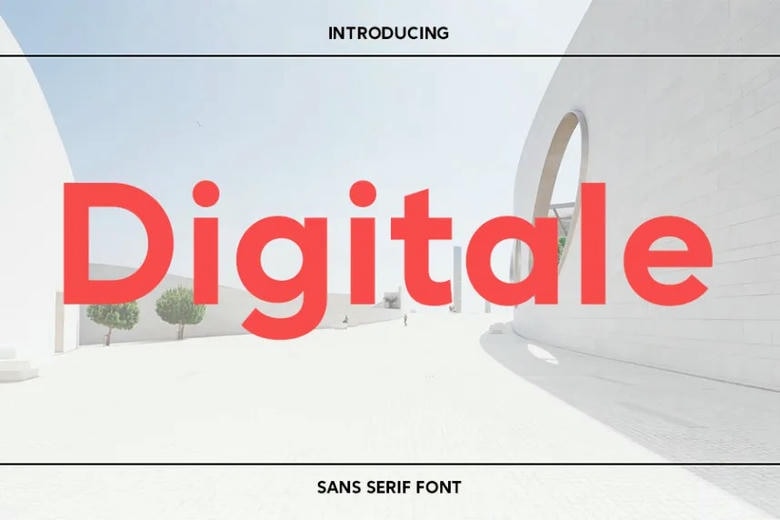
Digitale Font Family
Digitale Font Family is a multi-purpose geometric sans serif family, which is intended to provide a new approach to the long-established genre. Digitale has a monolinear structure with its systematic proportions which make it well adapted in user interfaces, corporate branding as well as editorial design, both on the web and print. The clarity and the diversity of weights contribute to the success of the hierarchy of information.
The x-height of the lowercase letters is very high which increases its readability and therefore useful in both text and display purposes. Digitale has 14 designs, comprising of 7 upright fonts, 7 italics and two variable fonts. The variable fonts have a weight axis that has 7 pre-set instances that start with thin and end with extrabold to ensure flexibility in the font according to various design requirements.